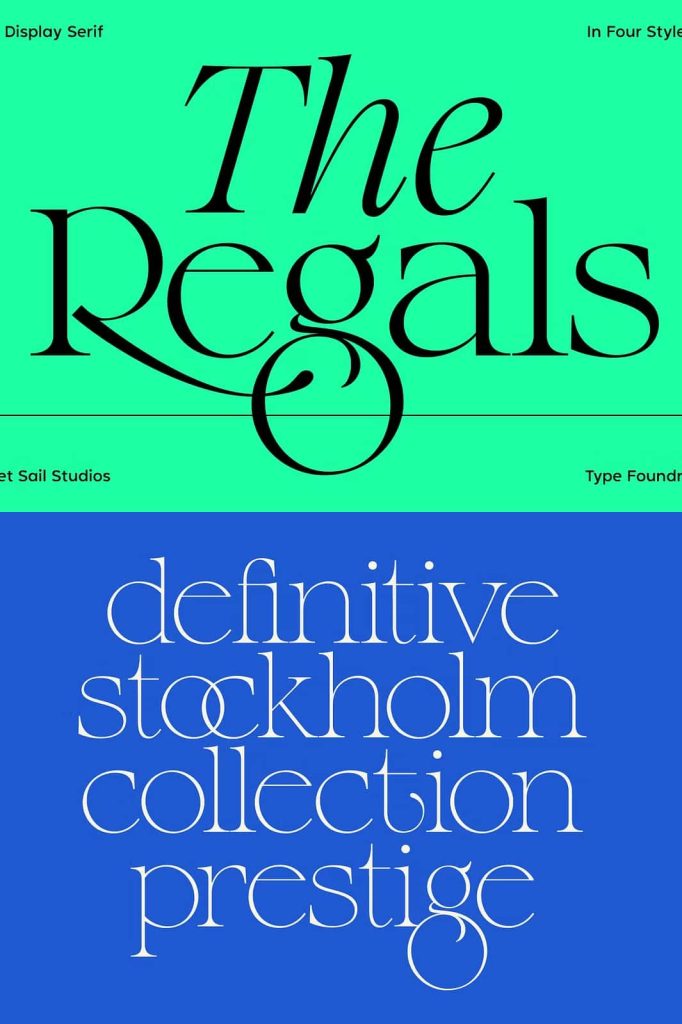
The Regals Serif Font Family
The Regals Serif Font Family delivers a crisp and modern interpretation of a classic transitional serif typeface. Designed with elegance and strength in mind, this font family offers a refined balance between tradition and contemporary style. It captures the sophistication of classic serif typography while introducing clean, modern details that make it highly relevant for today’s design needs.
With its strong presence and versatile structure, The Regals stands out as a display typeface that elevates visual communication. Designers can rely on it to create polished, professional, and visually engaging compositions across a wide range of creative projects.
A Modern Take on Transitional Serif Design
The Regals builds upon the principles of transitional serif typography, which bridges the gap between old-style and modern serif fonts. This foundation gives the typeface a timeless quality while allowing for greater clarity and precision. The font features balanced contrast, sharp serifs, and clean lines that contribute to its crisp and refined appearance.
By incorporating modern adjustments, The Regals enhances readability and visual impact. It maintains the elegance of traditional serif fonts while adapting to contemporary design standards. This combination makes it suitable for both classic and modern design approaches.
Strong and Classy Visual Identity
The Regals Serif Font Family communicates confidence, sophistication, and professionalism. Its structured letterforms create a strong visual presence that works exceptionally well in display settings. Designers can use this font to establish a clear and memorable identity in branding, editorial layouts, and marketing materials.
The font’s classy aesthetic makes it particularly effective for luxury brands, fashion projects, and high-end design work. It conveys a sense of quality and attention to detail, helping your designs stand out with elegance and authority.
Four Versatile Styles
The Regals offers four distinct styles, providing designers with the flexibility to adapt their typography to different contexts. Each style maintains the core identity of the typeface while introducing subtle variations that enhance creative possibilities.
This variety allows you to build dynamic typography systems without losing consistency. You can combine styles to create contrast, emphasize key elements, and develop visually engaging layouts. The availability of multiple styles ensures that the font remains useful across a wide range of projects.
Perfect for Display and Headlines
The Regals excels in display applications where clarity and impact are essential. Its crisp design and strong structure make it ideal for headlines, titles, and key visual elements. Designers can use it to create focal points that draw attention and guide the viewer’s eye.
Whether you are designing magazine covers, advertisements, or website headers, this font ensures that your text remains both readable and visually striking. Its refined details enhance the overall quality of your design.
Versatile Across Creative Projects
The Regals Serif Font Family adapts easily to a wide range of design applications. It works beautifully in branding, editorial design, packaging, and digital media. Its versatility allows designers to use it in both print and online environments while maintaining a consistent visual identity.
In editorial layouts, the font adds structure and elegance, making it suitable for magazines, books, and articles. In branding, it helps create a strong and recognizable identity. In digital design, it performs well on screens, ensuring clarity and readability across different devices.
Create Elegant and Impactful Designs
The Regals empowers designers to create typography that feels both timeless and modern. Its combination of classic inspiration and contemporary execution allows you to produce designs that resonate with a wide audience. The font encourages creativity while maintaining a high level of professionalism.
By using The Regals, you can enhance your visual storytelling and create compositions that communicate effectively. Its strong and classy appearance ensures that your designs leave a lasting impression.
Elevate Your Typography with Confidence
The Regals Serif Font Family provides a reliable and versatile solution for designers who value elegance, clarity, and flexibility. Its four styles, modern refinements, and strong visual presence make it an essential addition to any font library. Whether you are working on branding, editorial projects, or display typography, this font family delivers the tools you need to succeed.
With The Regals, you can transform simple text into a refined visual experience that captures attention and communicates with confidence. It stands as a powerful choice for designers who want to combine classic sophistication with modern design excellence.